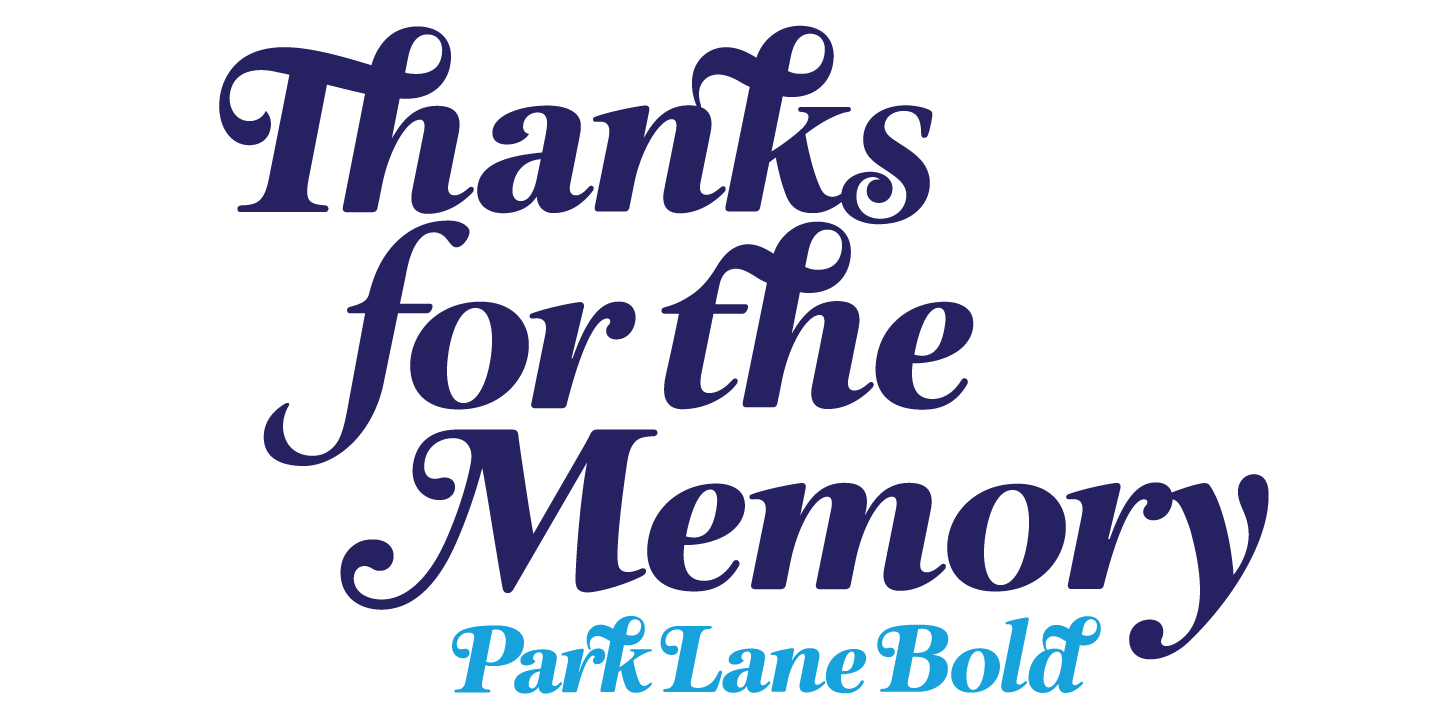
Park Lane – Elegant Serif Font
Park Lane – Elegant Serif Font is a stylish typeface that enhances visual appeal and works effortlessly in many design contexts. A Classic italic Roman with a set of alternative swash caps and a number of original swash lower case characters that can create a number of unusual ligatures.